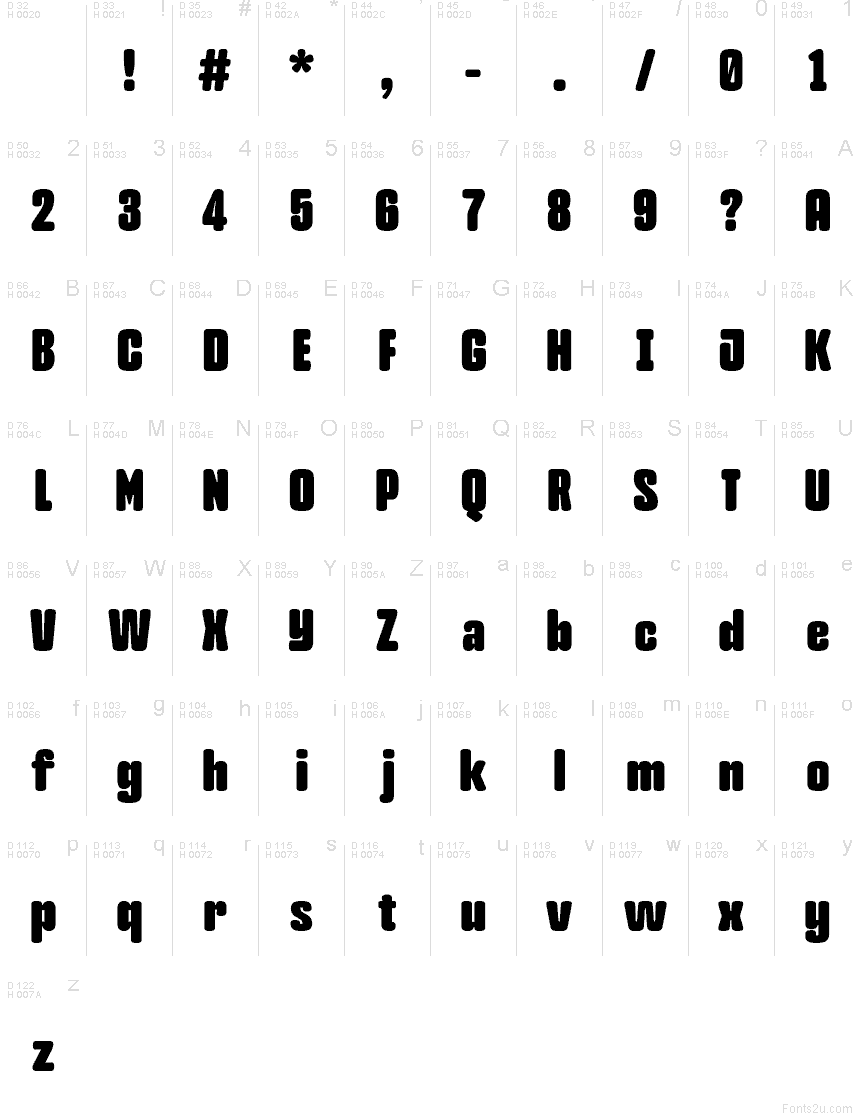
SG Larchett Regular DEMO
SG Larchett font by Studio Gulden is a free chunky sans serif font with a squeezed, ultra-bold stance and pillowy curves that feel almost molded from rubber. Its tight proportions and heavy ink coverage create instant punch while staying friendly, thanks to those rounded corners and smooth, uninterrupted strokes.
Using SG Larchett, you’ll get loud headlines on posters, streetwear graphics, album covers, event promos, sports branding, YouTube thumbnails, packaging labels, and storefront signage. This free font shines when you give it room—try a short line or two and add a touch of letter spacing. Pair it with a clean light grotesk for body copy to keep the weight balanced.